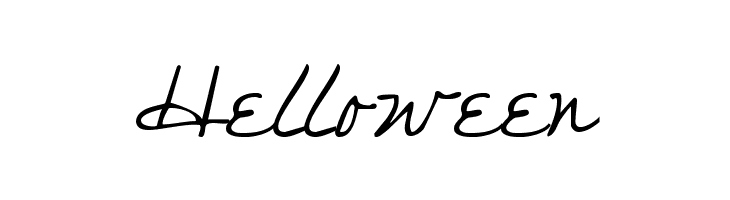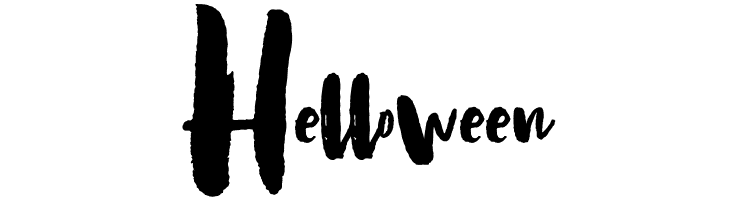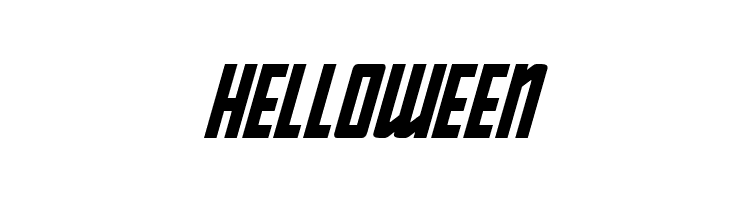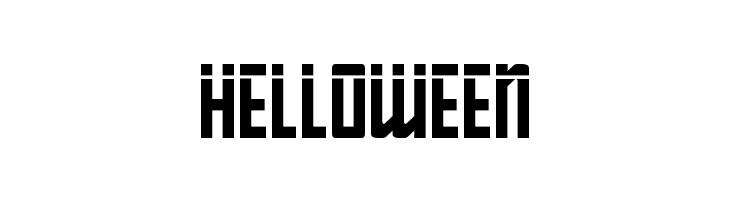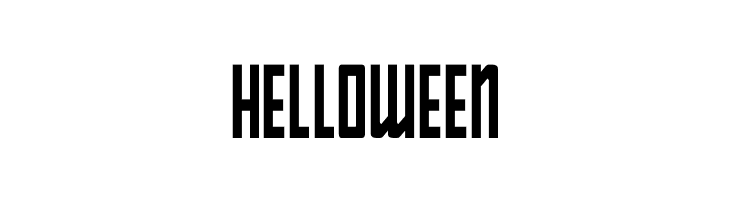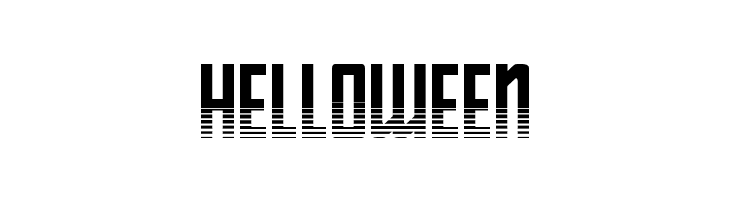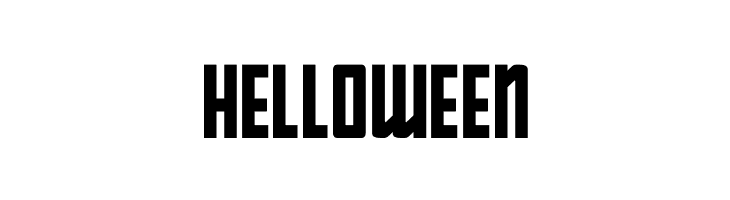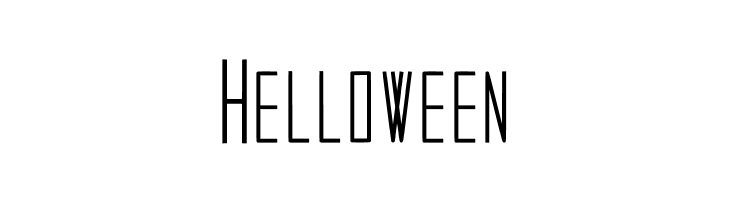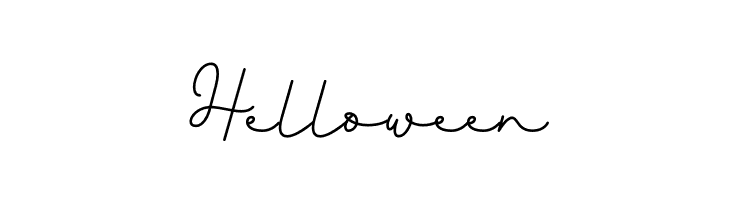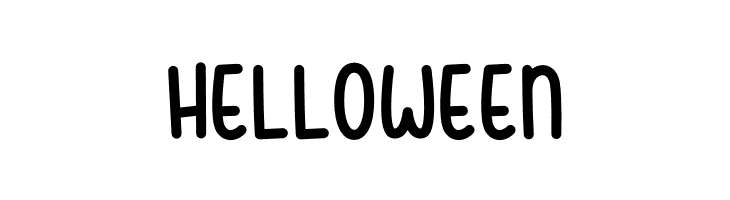
A modern, geometric font with bold, abstract elements and dynamic strokes.
A playful, rounded handwritten font with a friendly and informal style.
A bold, handwritten font with elongated, narrow characters and a modern artistic flair.
A lively and elegant script font with bold, flowing curves.
A playful, bold font with a modern, decorative style.
A bold, expressive handwritten font with dynamic strokes and a playful yet assertive style.
A bold, expressive handwritten font with brush-like strokes.
A bold, geometric font with sharp angles and a blocky appearance.
A cursive, handwritten-style font with elegant, flowing characters.
A bold, playful font with rounded edges and a slightly italicized style.
A bold, distressed font with a marbled texture for a rugged look.
A bold, distressed font with a textured, rugged appearance.
A playful, textured display font with unique patterns in each letter.
Cartoonish, narrative-driven display font with detailed character scenes.
A bold, brush-style font with a hand-painted, artistic appearance.
An ornate and decorative font with intricate, vintage-inspired patterns.
A playful, rounded font with a bold and friendly appearance.
A playful, bold, and rounded handwritten font with a casual style.
A playful, rounded font with thick strokes and smooth curves.
A playful and elegant handwritten font with smooth, flowing curves.
A playful, handwritten cursive font with smooth, flowing strokes.
A modern, geometric font with elongated, narrow characters and a sleek design.
A playful, handwritten font with bold, rounded characters and a whimsical style.
A playful, cursive handwritten font with fluid strokes and a lively appearance.
A flowing, cursive font with elegant, script-like characteristics.
An elegant, flowing script font with smooth, cursive letterforms.
A bold, rounded font with a modern and friendly style.
A playful, casual handwritten font with rounded, consistent strokes.
A dynamic and flowing script font with elegant cursive letterforms.
A bold, geometric font with a strong, authoritative presence.
A bold, italicized font with a dynamic and energetic style.
A bold, condensed font with a modern and impactful style.
A bold, halftone-effect font with a modern, textured appearance.